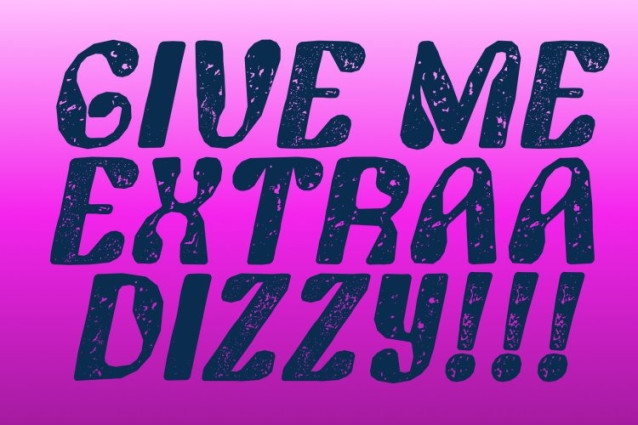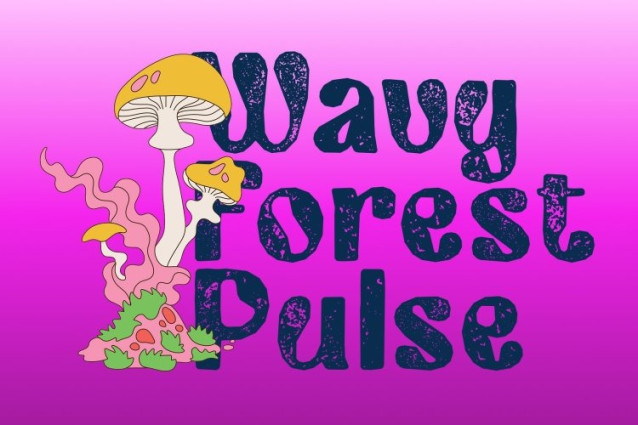
CS Argie Stamp Font This is a psychedelic display font that brings the vibrant spirit of trippy art into bold, expressive typography. Its swirling, undulating letterforms create a playful and dynamic visual rhythm, while the stamped texture introduces a vintage, slightly worn feel. This combination results in a font that feels energetic yet tactile fun, expressive, and full of character.
Psychedelic Inspiration with Funky, Handcrafted Touches
Inspired by psychedelic visuals and free-spirited creativity, this font features curved, flowing shapes that turn each letter into a visual experience. The bold forms are enhanced by a rough, stamp-like texture that adds artistic depth and an old-print aesthetic. Funky details and organic distortions evoke joy, imagination, and a sense of creative freedom.
Ideal for Vibrant, Expressive, and Retro-Inspired Projects
This font is perfect for designs that aim to stand out with color, movement, and personality. It works beautifully for posters, album covers, event flyers, merchandise, and promotional materials that want a bold psychedelic look with a nostalgic edge. The stamped effect ensures strong visual presence while adding warmth and authenticity.
Bringing Joy, Creativity, and Vintage Flair to Your Designs
With its trippy shapes, playful energy, and textured stamp finish, this font transforms typography into visual art. It adds joy, creativity, and a retro vibe to any project, ensuring your designs feel memorable, expressive, and visually engaging.